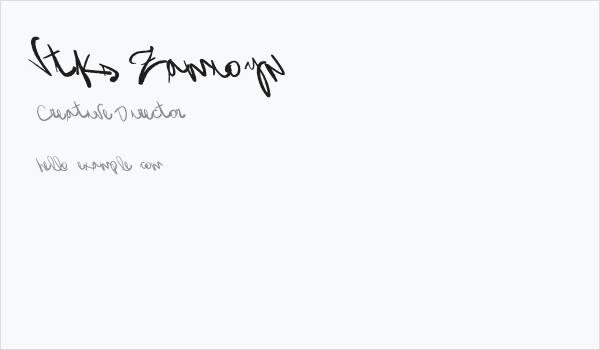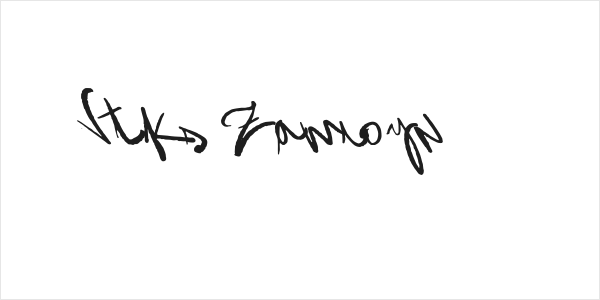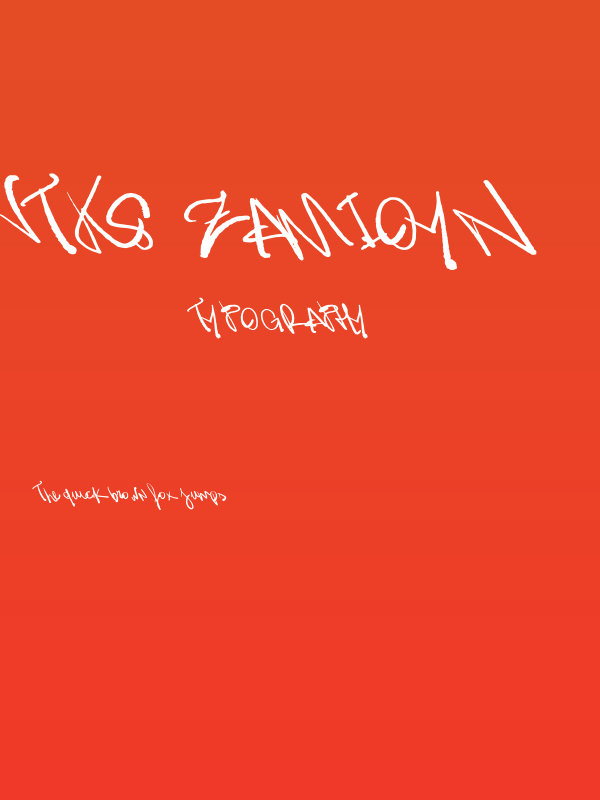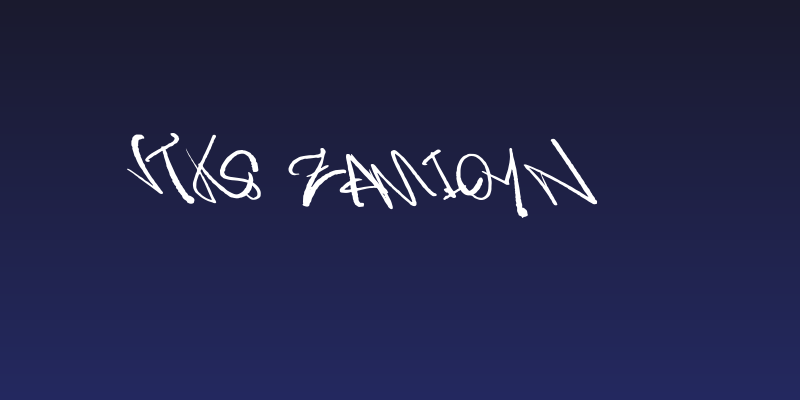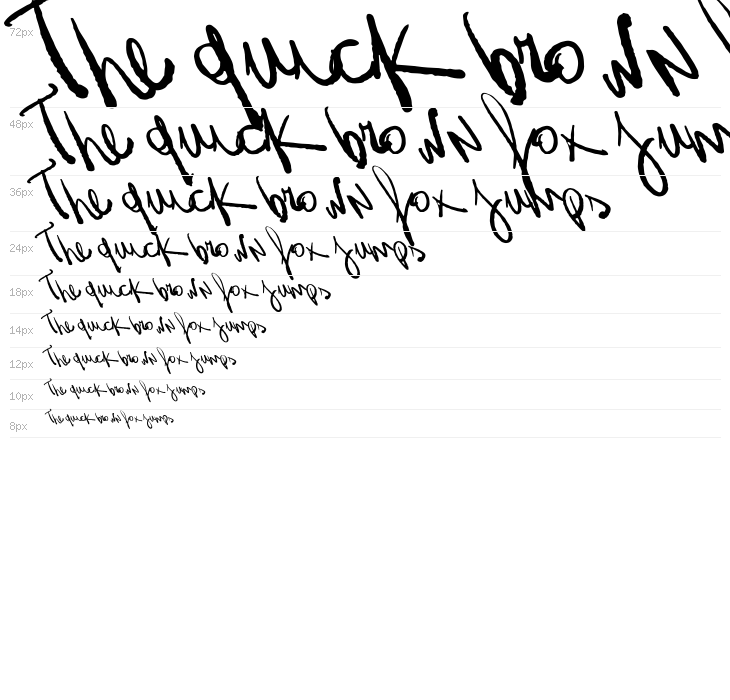
Vtks Zamioyn4 Font
Vtks Zamioyn4 Description
This font exhibits a dynamic and energetic handwritten style, characterized by its bold and expressive strokes. The letters are crafted with a sense of spontaneity, giving it a lively and informal appearance. The uppercase and lowercase letters maintain a consistent flow, while the numbers and special characters integrate seamlessly into the overall design. The font's irregular and playful nature makes it stand out, offering a unique visual appeal that is both artistic and modern.